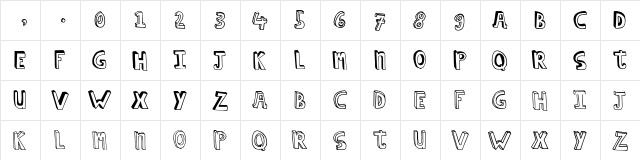
hildeCAPS Regular
Regular · J O E B O B graphics J O E B O B graphics ·
Foundry J O E B O B graphics
DesignerJ O E B O B graphics
Design Context for hildeCAPS Typeface
hildeCAPS is a composed and adaptable typeface that performs quietly and consistently across a wide range of design contexts.